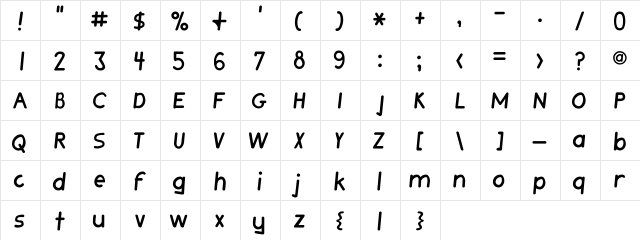
AquilliaComicHa Regular Font Preview
AquilliaComicHa Regular
AquilliaComicHa Regular Font Details
Design Context for AquilliaComicHa Typeface
AquilliaComicHa trades formality for fun, with bouncy, characterful letterforms that bring warmth and energy to any project.
Font Pairing: Pairs well with a rounded or humanist sans for body copy, maintaining the friendly tone without relying on AquilliaComicHa to carry extended reading.
Pro Tip: Avoid using AquilliaComicHa for long passages of text — it works best for headlines, labels, and short calls to action.